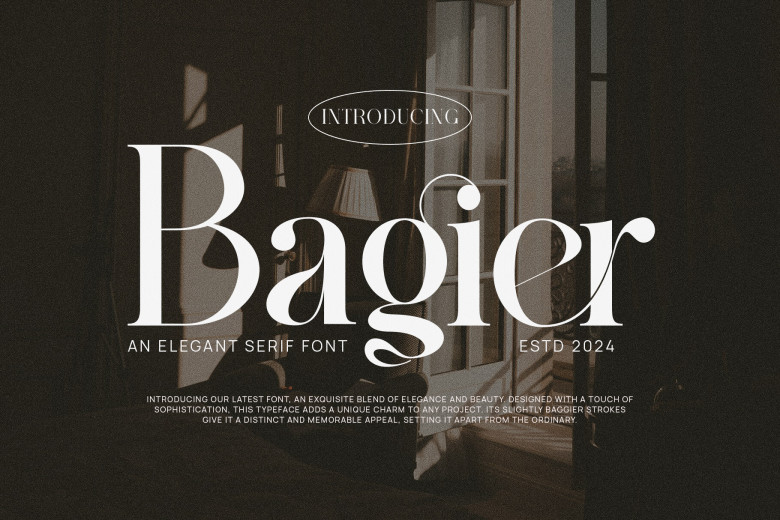
Bagier Font
Bagier can be described as an elegant and sophisticated serif font that epitomizes timeless elegance. Boasting intricate letterforms that add a sophisticated look, Bagier makes an excellent addition to designs requiring both tradition and modernity; its minimalist elegance ensures it brings sophistication into any artistic expressions.
Bagier Serif Font